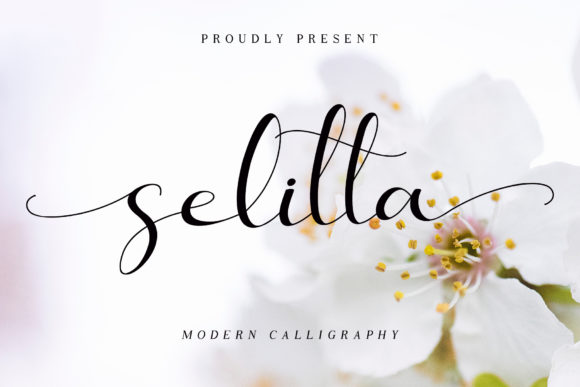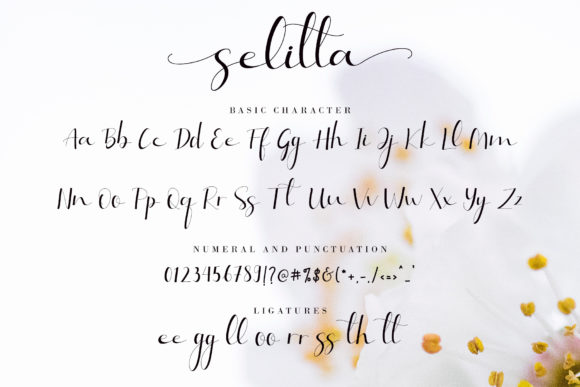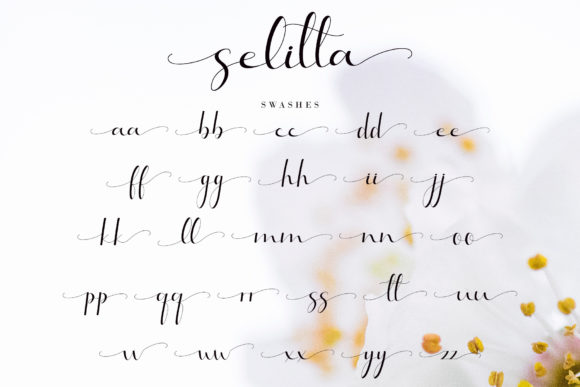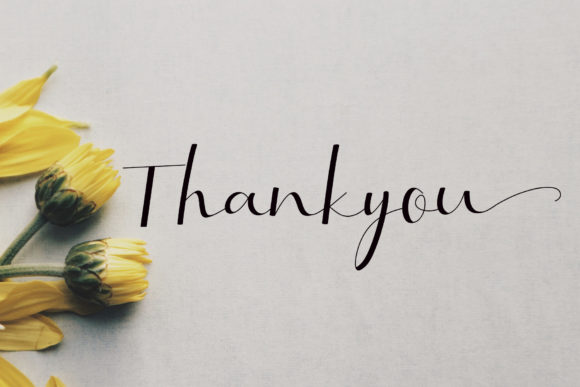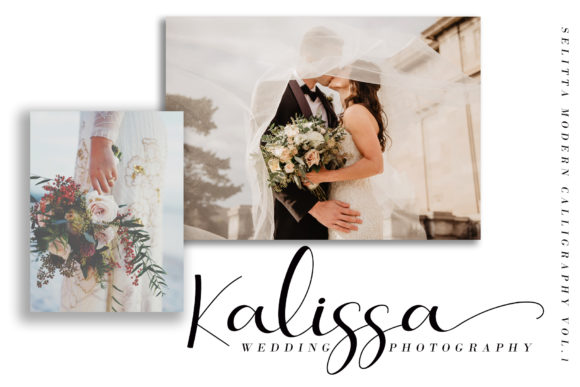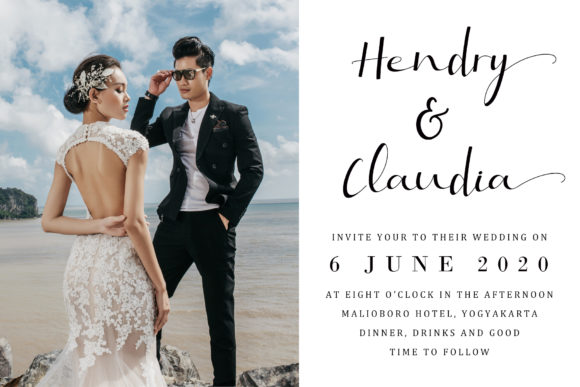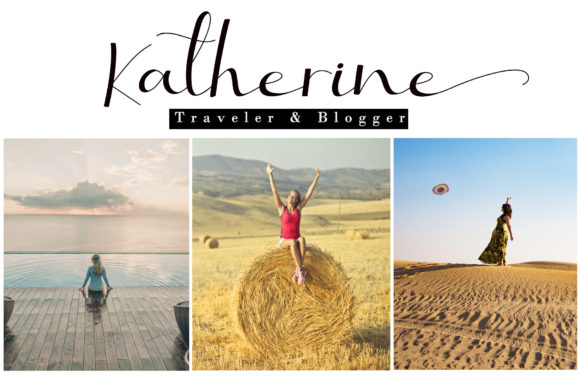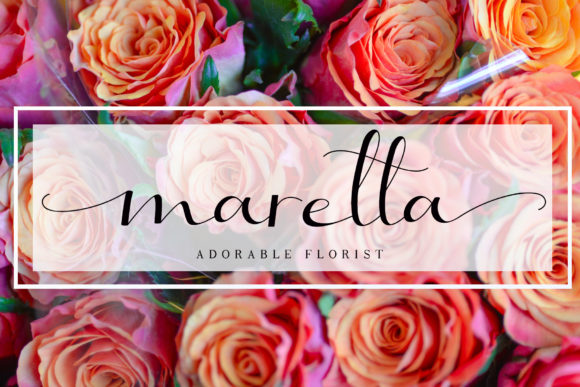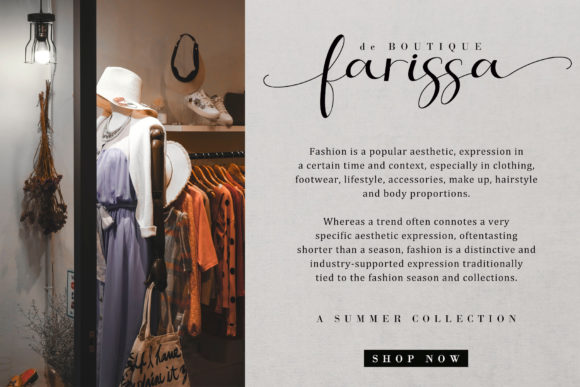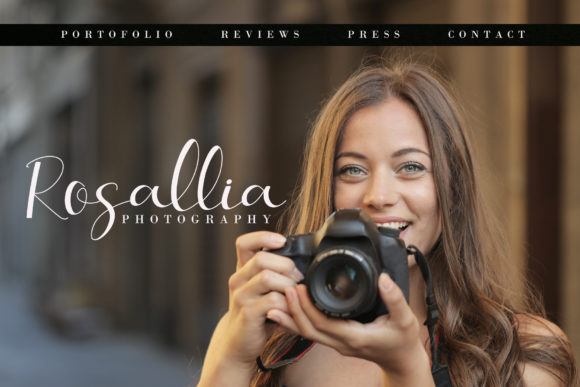
Selitta Font
About Selitta Font
Selitta is a sweet, soft hand-lettered handwritten font. Fall in love with its authentic feel and use it to create gorgeous wedding invitations, beautiful stationary art, eye-catching social media posts, and a wide variety of projects!.